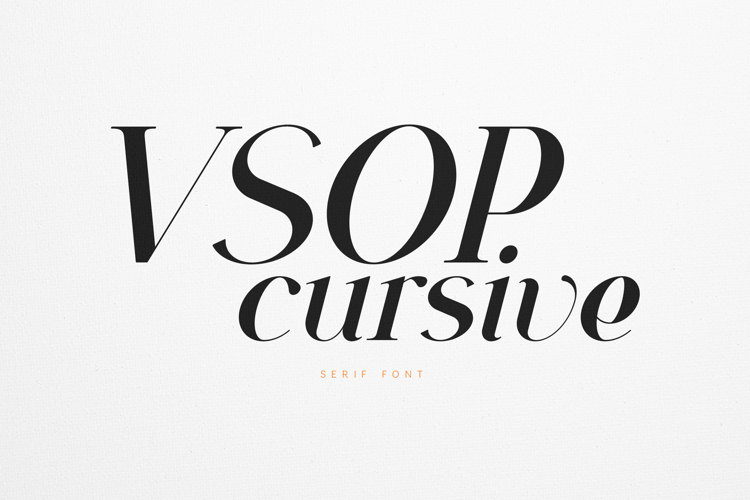
VSOP Cursive Elegant Serif Typeface
VSOP Cursive is a refined serif typeface that blends classic elegance with expressive cursive movement.
Designed with graceful contrasts, flowing curves, and sophisticated terminals, this typeface brings a luxurious and artistic tone to modern typography. The italic rhythm and sculpted letterforms create a distinctive visual personality that feels both timeless and contemporary.
VSOP Cursive works beautifully in editorial layouts, luxury branding, fashion design, and high-end packaging. Its elegant structure allows it to perform equally well in headlines, logos, and refined typographic compositions.
The typeface combines classic serif foundations with subtle calligraphic influence, resulting in a stylish and expressive design language perfect for projects that demand sophistication.
Perfect For• Luxury branding
• Fashion magazines
• Editorial design
• Elegant logos
• Wedding stationery
• Premium packaging
• Social media graphics
• Beauty & perfume branding
• Elegant serif design
• Expressive cursive influence